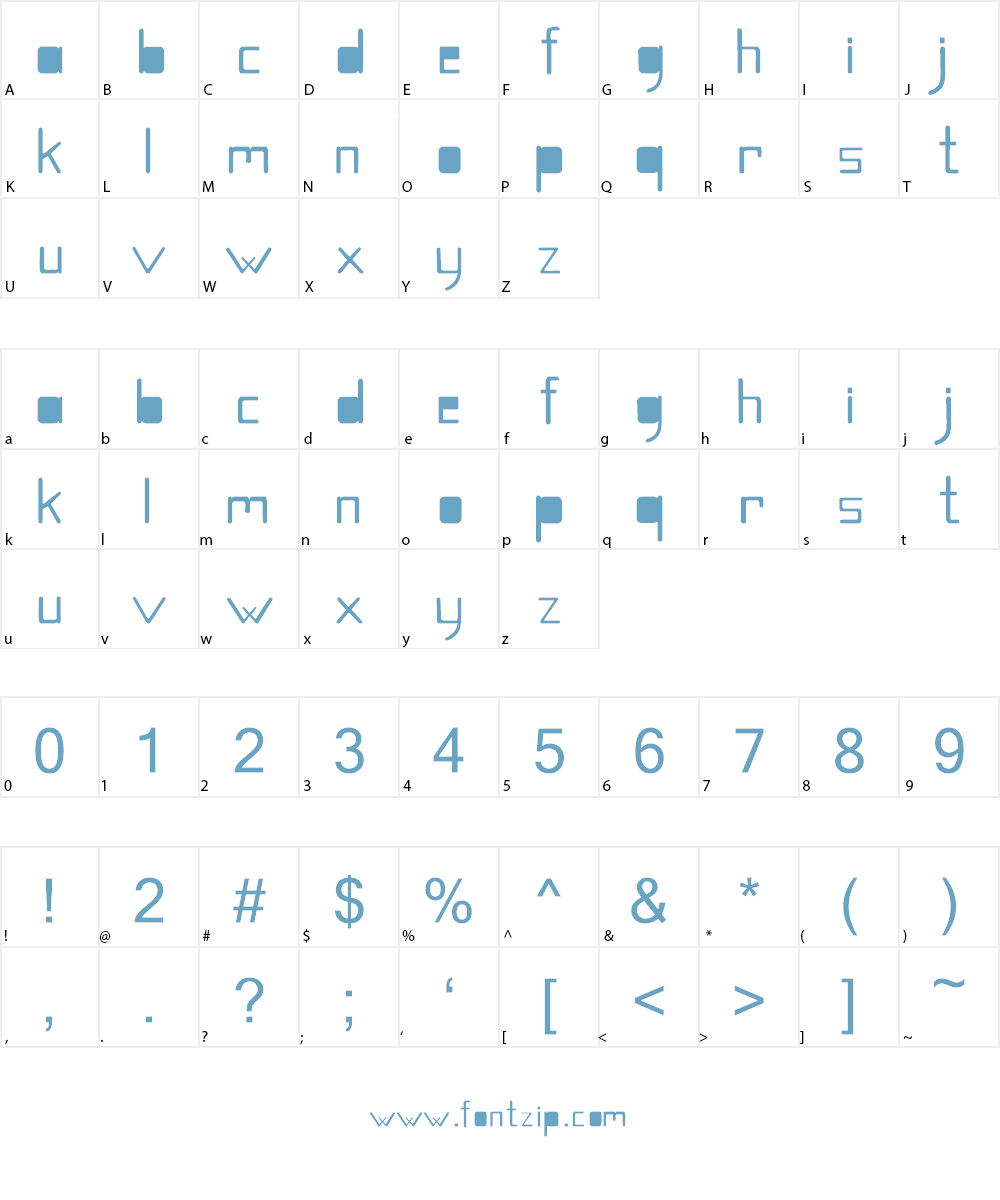
If for commercial use please CONTACT AUTHOR. I wanted to create a quirky, fun font that could be used with texture (you know, to make it extra quirky).